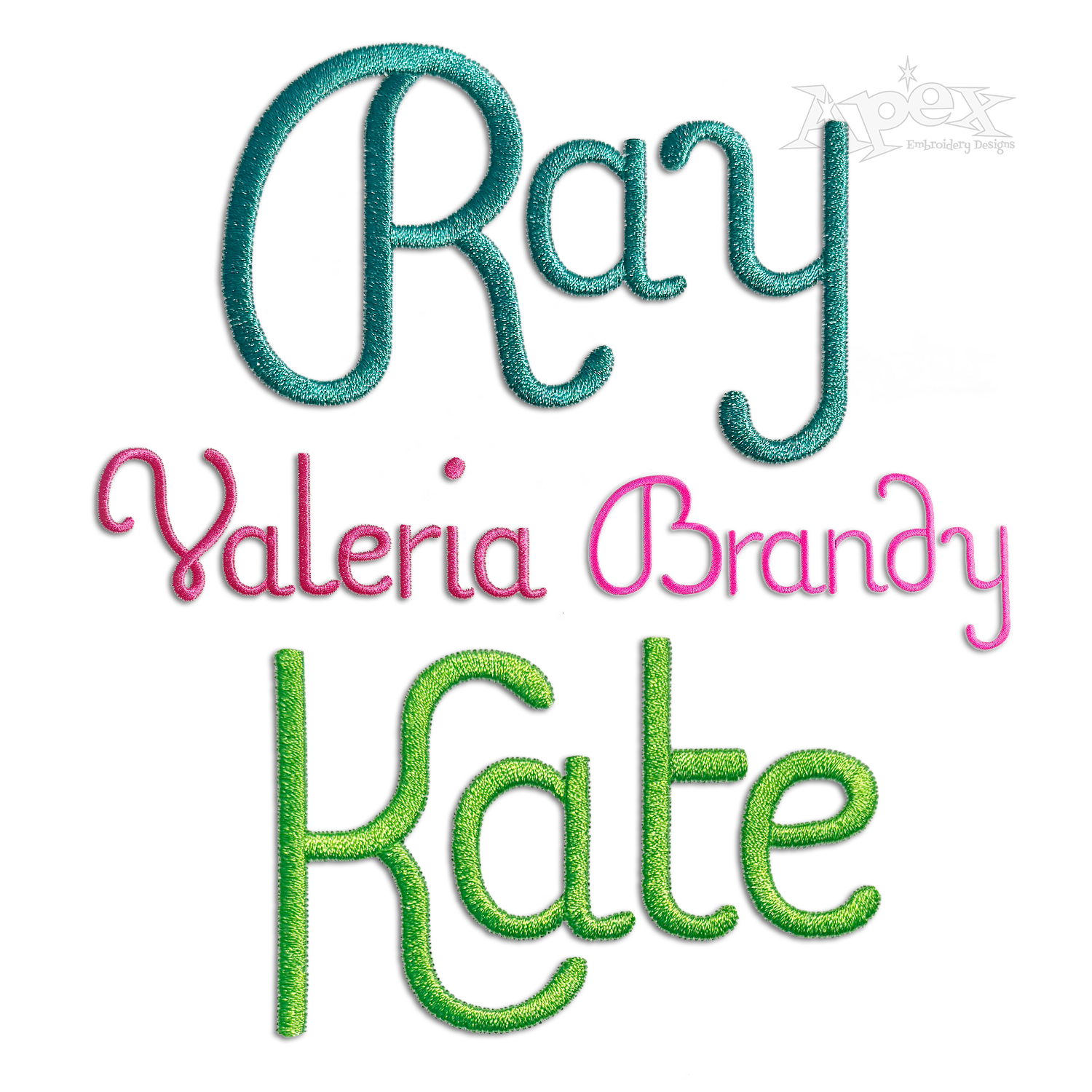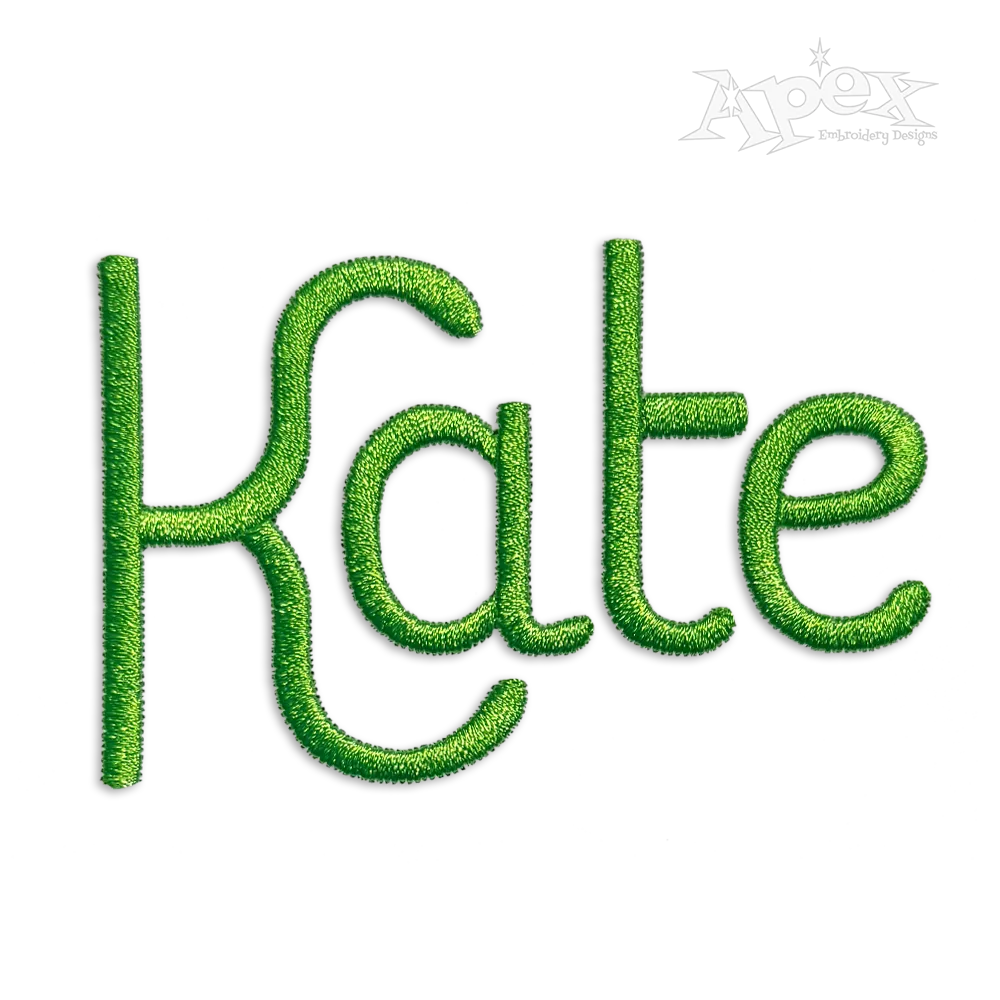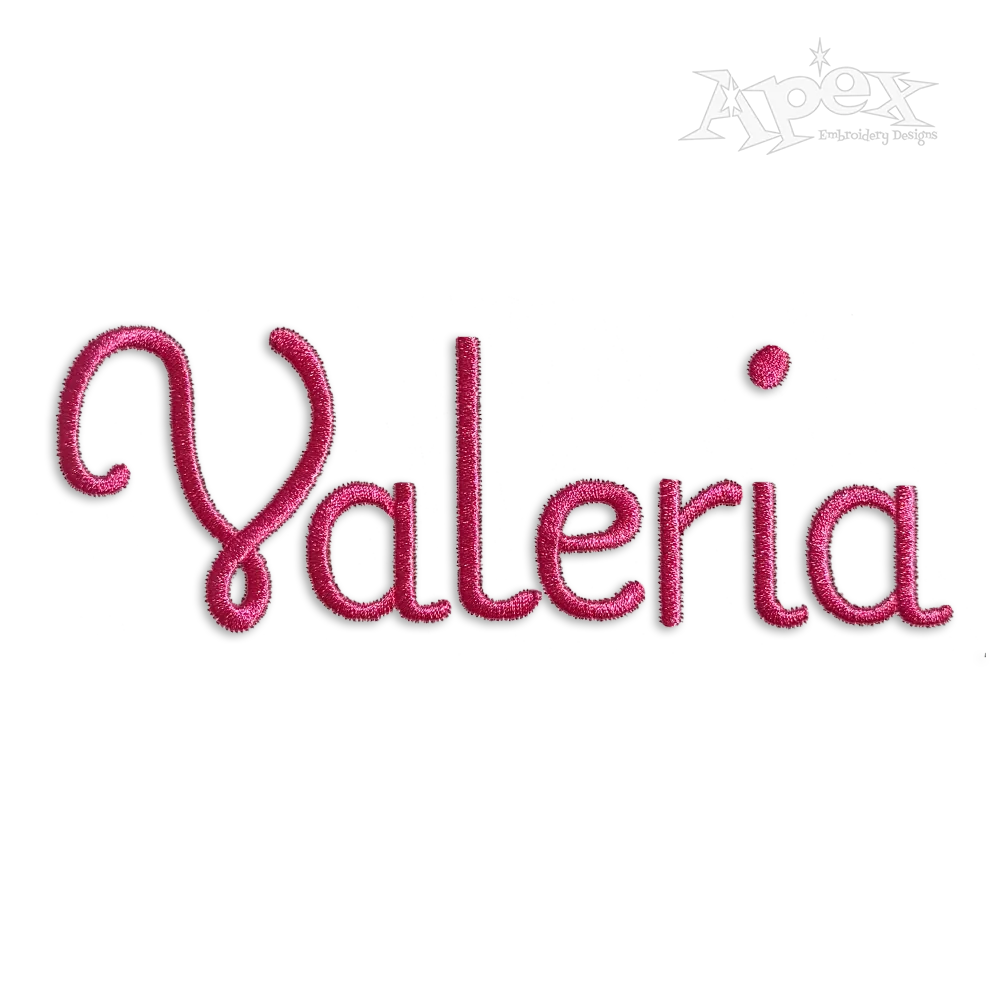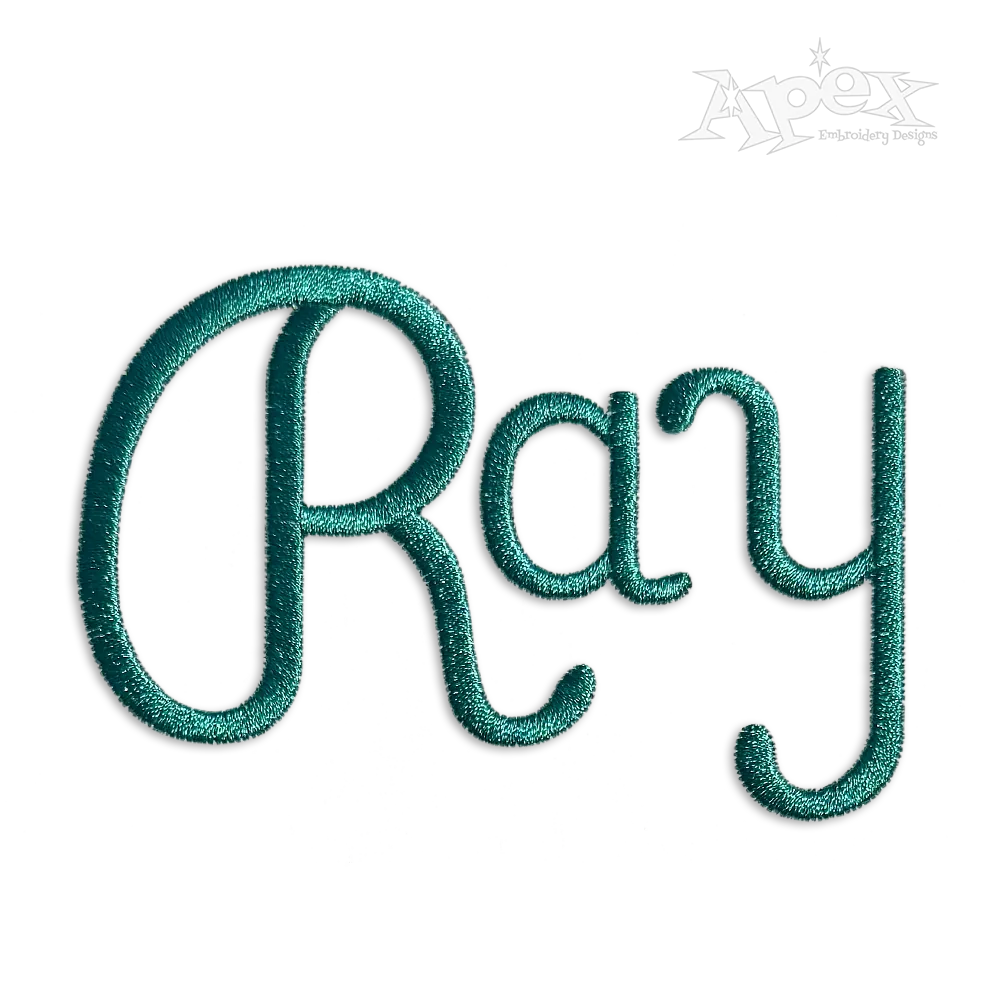
Vancouver Embroidery Font
Drawing inspiration from the dramatic intersection of coastal wilderness and sleek urban architecture, the Vancouver Embroidery Font embodies refined modernism with an unmistakable air of quiet luxury. We digitized this alphabet to offer needleworkers a pristine, statuesque typography that commands attention without shouting. Its architectural balance and luminous column contours create a clean, contemporary profile that breathes effortless sophistication into both minimalist garments and lavish bespoke home textiles.
Project Ideas for Vancouver Embroidery Font
With its versatile balance of tailored structure and fluid satin sheen, the Vancouver alphabet unlocks endless opportunities for elevated personalization:
- Luxury Table Linens: Stitch crisp single initials or classic three-letter monograms onto hemstitched linen cocktail napkins and runner sets.
- Bespoke Resort Wear: Embellish linen tunics, cabana shirts, and canvas boat totes with crisp nautical-inspired monograms.
- Heirloom Bedding: Elevate Egyptian cotton duvet covers, euro shams, and waffle-weave throws with grand-scale 4.5-inch initials.
- Bridal & Personalized Gifting: Personalize silk bridal party robes, groom duffels, and tailored cosmetic pouches for timeless keepsakes.
- Curated Outerwear: Transform utility jackets, quilted vests, and collegiate-style sweatshirts with polished custom monogramming.
Achieving a high-end, boutique aesthetic relies on thoughtful composition and placement:
- Diagonal Corner Placement: On dinner napkins and cocktail squares, position the letterform along a 45-degree diagonal, set 1.5 to 2 inches inward from the finished hemline.
- Classic Left Chest: For tailored shirts, polo knits, and cardigan sweaters, center the 2.5-inch design approximately 7 to 9 inches down from the shoulder seam and midway between the placket and side seam.
- Center Front Focal: When embroidering canvas market totes, accent pillows, or oversized sweatshirts, anchor the 3.5-inch or 4.5-inch monogram dead-center across the visual focal plane.
- Cuff & Hem Accents: Position the 2.5-inch scale along shirt cuffs or garment hems, orienting the baseline toward the outer cuff edge for a custom-tailored European touch.
Vancouver Embroidery Font Craft & Letterform Details
Every letterform in the Vancouver Embroidery Font is hand-crafted with rigorous technical discipline to maximize thread luster and edge definition. Rather than relying on automated conversions, our digitizers sculpted each stroke with customized push-and-pull compensation, ensuring that circular bows stay perfectly rounded and vertical stems remain immaculately plumb once stitched into tensioned fabric.
The satin stitch columns feature nuanced underlay profiling—combining targeted center runs with edge-reinforcing travel stitches—to lift the top embroidery slightly above the fabric weave. This structural foundation prevents sinking in textured textiles while allowing light to glide seamlessly over every contour. Clean terminal cuts and subtle transition angles ensure fluid stitch flow, making Vancouver a joy to run on your machine and an enduring delight to behold.